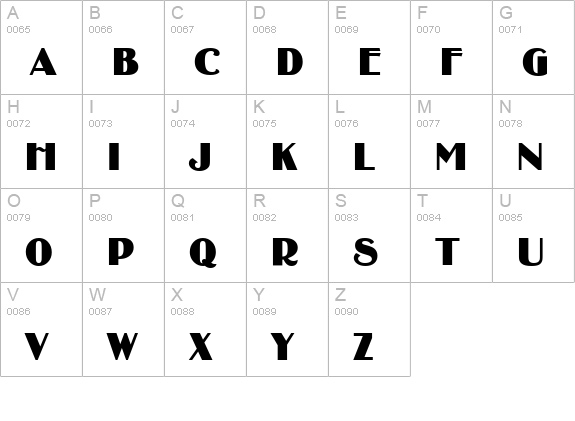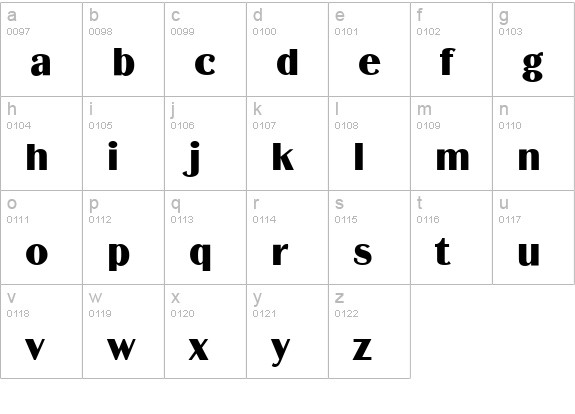
BirminghamSoft Font Details
BirminghamSoft font is a stylish and modern typeface that exudes sophistication and elegance. With its sleek lines and contemporary design, this font is perfect for a wide range of projects, from branding and logos to marketing materials and social media graphics. Its clean and minimalistic look makes it versatile and easy to read, while still maintaining a sense of creativity and flair. Best of all, BirminghamSoft is available for free download at FontsMarket.com, making it accessible to all designers and creatives looking to add a touch of class to their work. Don't miss out on the opportunity to elevate your designs with this beautiful and free font!